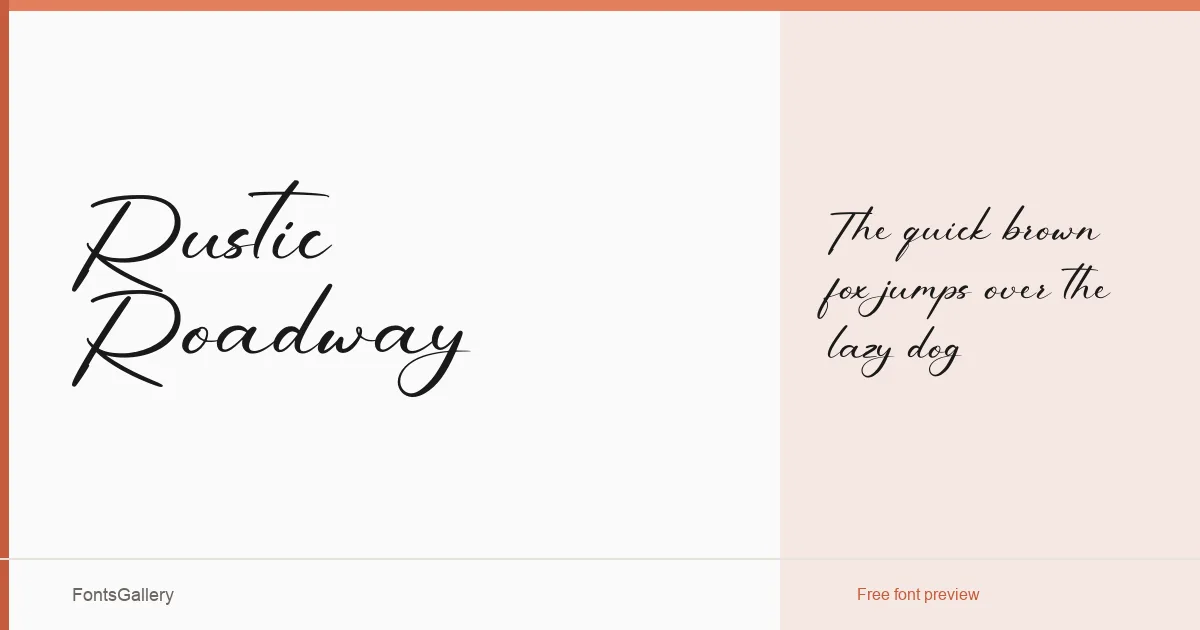
About Rustic Roadway Font
Rustic Roadway is a script typeface designed by Thomas Aradea, blending elegant romance with a warm, vintage charm. Its handcrafted character makes it a versatile choice for projects that call for a personal, timeless touch. The combination of rustic warmth and refined styling gives it a distinctive appeal across a wide range of creative applications.
Rustic Roadway features flowing script letterforms that evoke an elegant yet rustic sensibility, with strokes that feel both romantic and rooted in vintage tradition. The natural, hand-drawn quality of each character adds organic texture and warmth, making every word feel crafted with intention. Its graceful curves and considered letterform connections lend it a sophisticated yet approachable personality.
Rustic Roadway is ideally suited for logos, branding, wedding stationery, invitation cards, and greeting cards where a romantic and vintage aesthetic is desired. Its expressive script character makes it especially compelling for boutique branding and celebratory print materials. For a balanced typographic pairing, consider combining it with Aresink for a complementary handcrafted feel, or Helvetica for a clean, modern contrast.